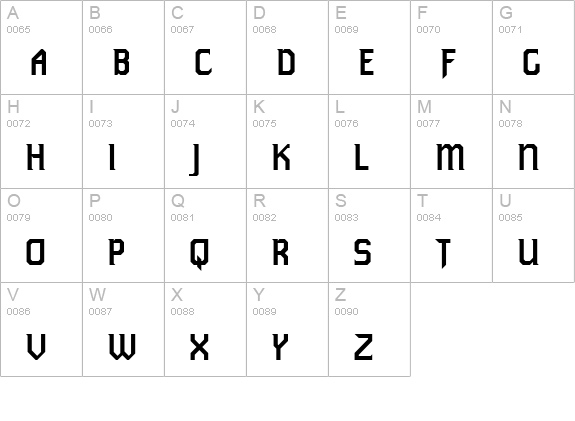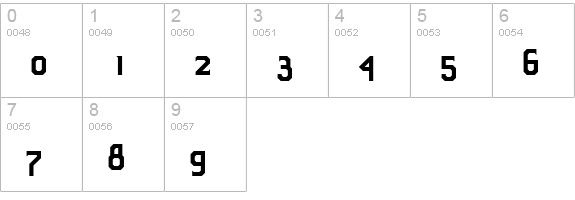
Tekno ICG Bold Font Details
Tekno ICG Bold is a strong, high-contrast variant in the Tekno typeface family \xE2\x80\x94 well suited to headlines, attention-grabbing titles, and strong calls-to-action.
Tekno ICG Bold is a bold and impactful font that exudes a sense of strength and modernity. With its sleek lines and geometric shapes, this font is perfect for projects that require a strong and impactful visual presence. Whether it is for headlines, logos, or branding materials, Tekno ICG Bold will capture attention and leave a lasting impression. What makes this font even more appealing is that it is freely available to download at FontsMarket.com. This means that you can easily access and use this font for your creative projects without any cost. Whether you are a professional designer, a student, or someone who simply loves experimenting with typography, Tekno ICG Bold offers you the opportunity to elevate your designs without breaking the bank. With its clean and professional look, Tekno ICG Bold is versatile and can be used across various design applications. From print materials such as brochures and posters to digital designs like websites and social media graphics, this font will lend a polished and contemporary touch to your creations. The bold weight of Tekno ICG Bold adds an extra level of impact, allowing your message to stand out and make a statement. Its boldness is balanced by its clean and sharp edges, creating a harmonious blend of power and elegance. Whether you are designing for a corporate brand, a tech startup, or a cutting-edge fashion label, Tekno ICG Bold is sure to add a touch of sophistication to your projects. Its legibility and distinctiveness make it an ideal choice for both display and body text. Download Tekno ICG Bold for free at FontsMarket.com and unleash your creativity with this powerful and versatile font. Stand out from the crowd and make a lasting impression with the bold and impactful design that Tekno ICG Bold offers.